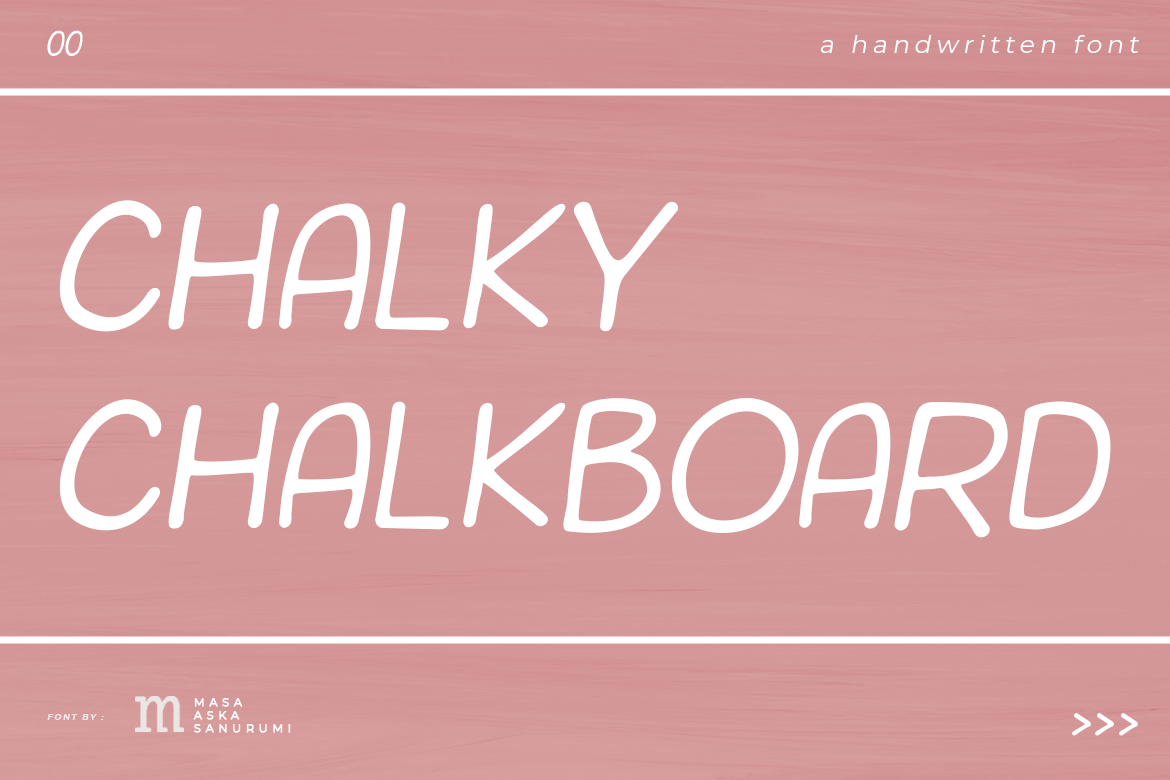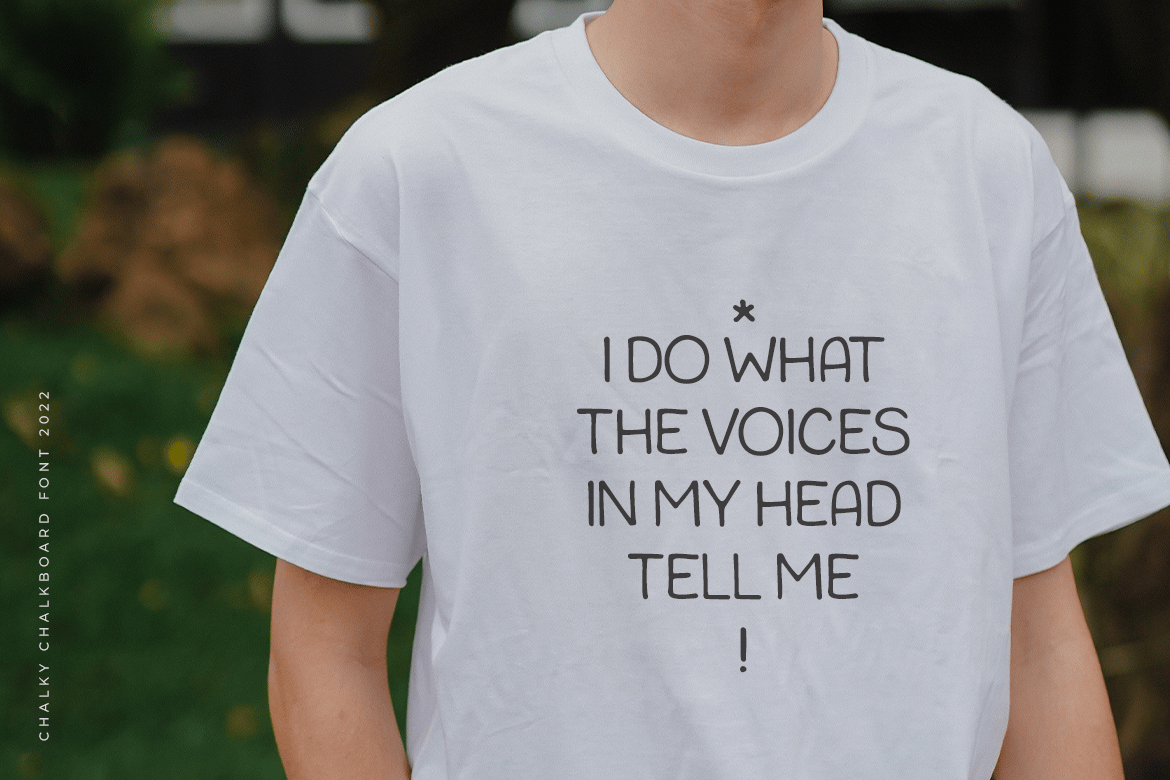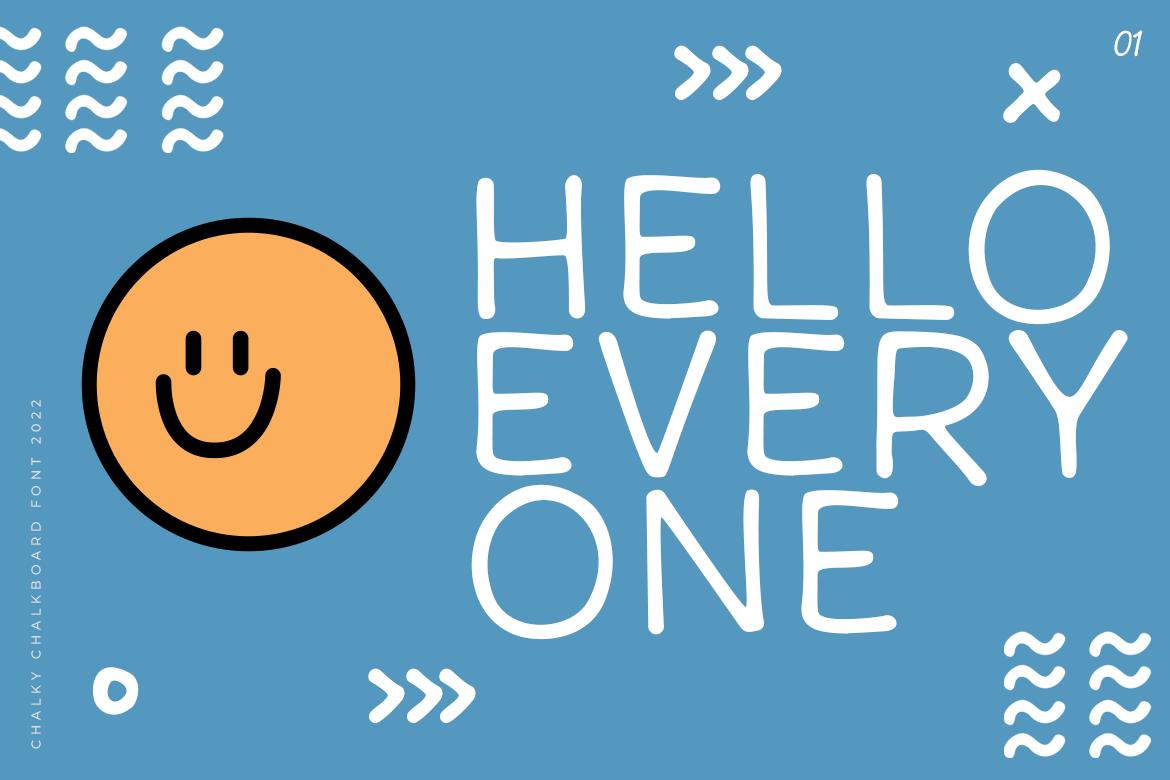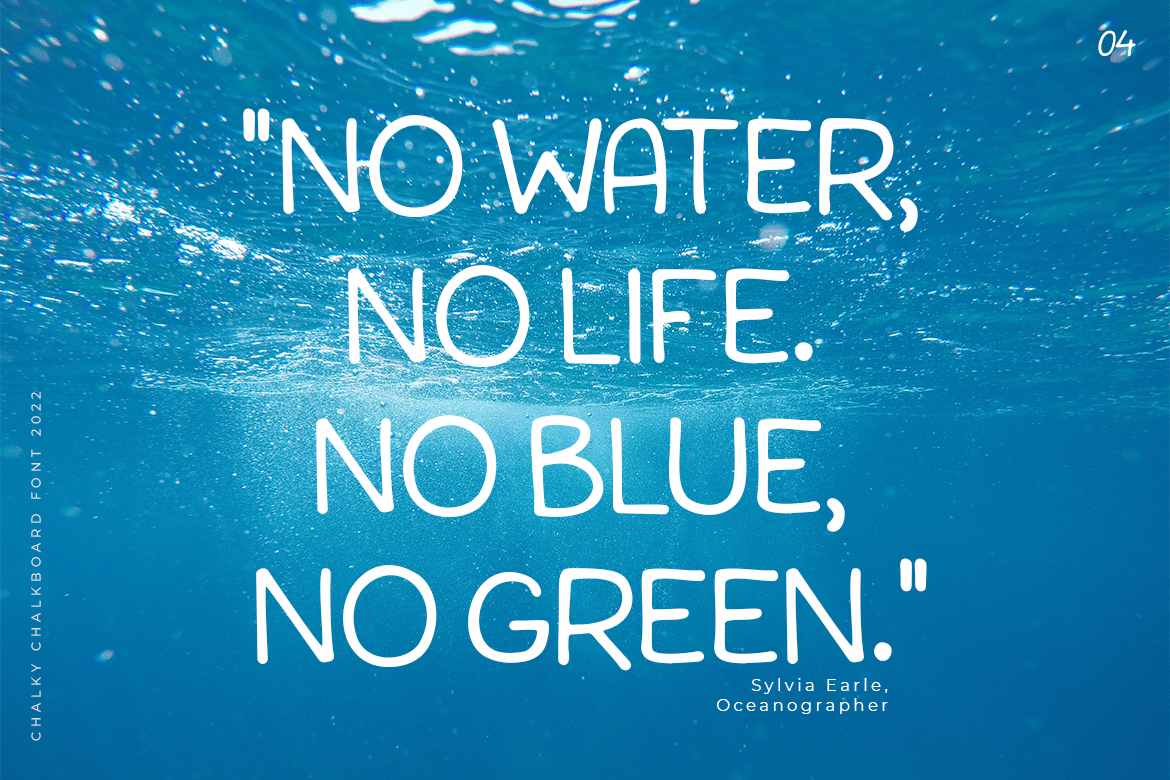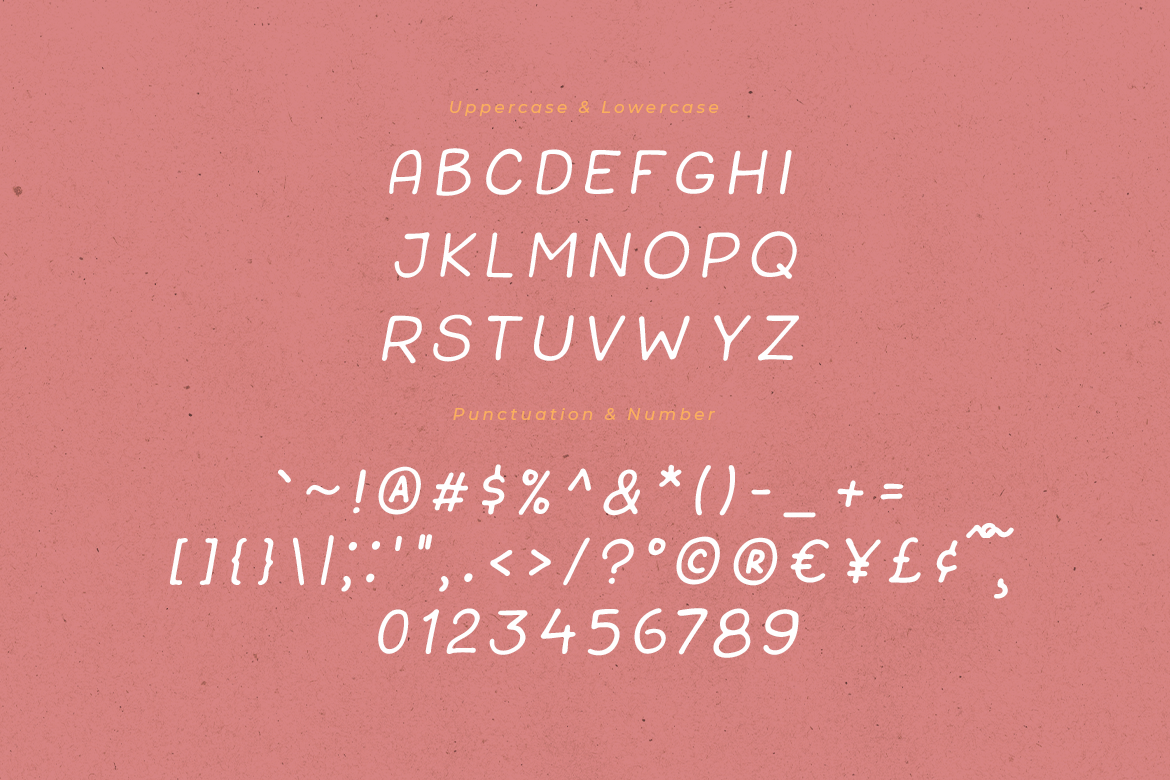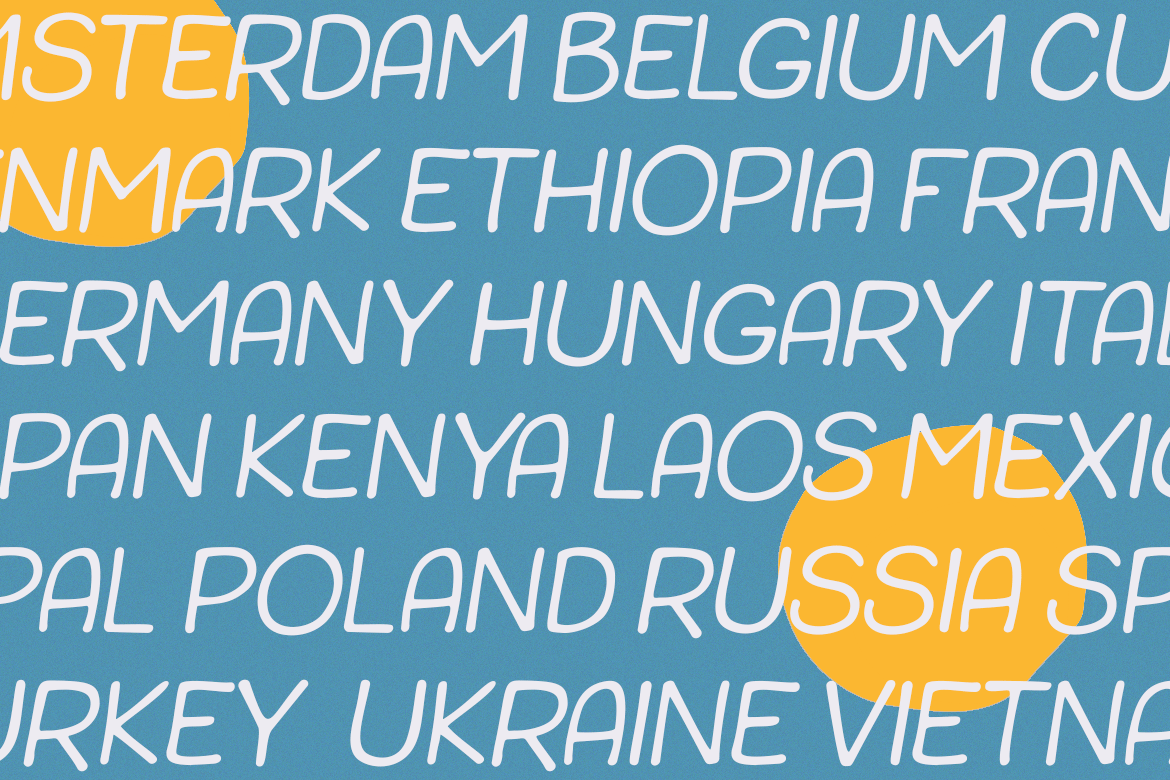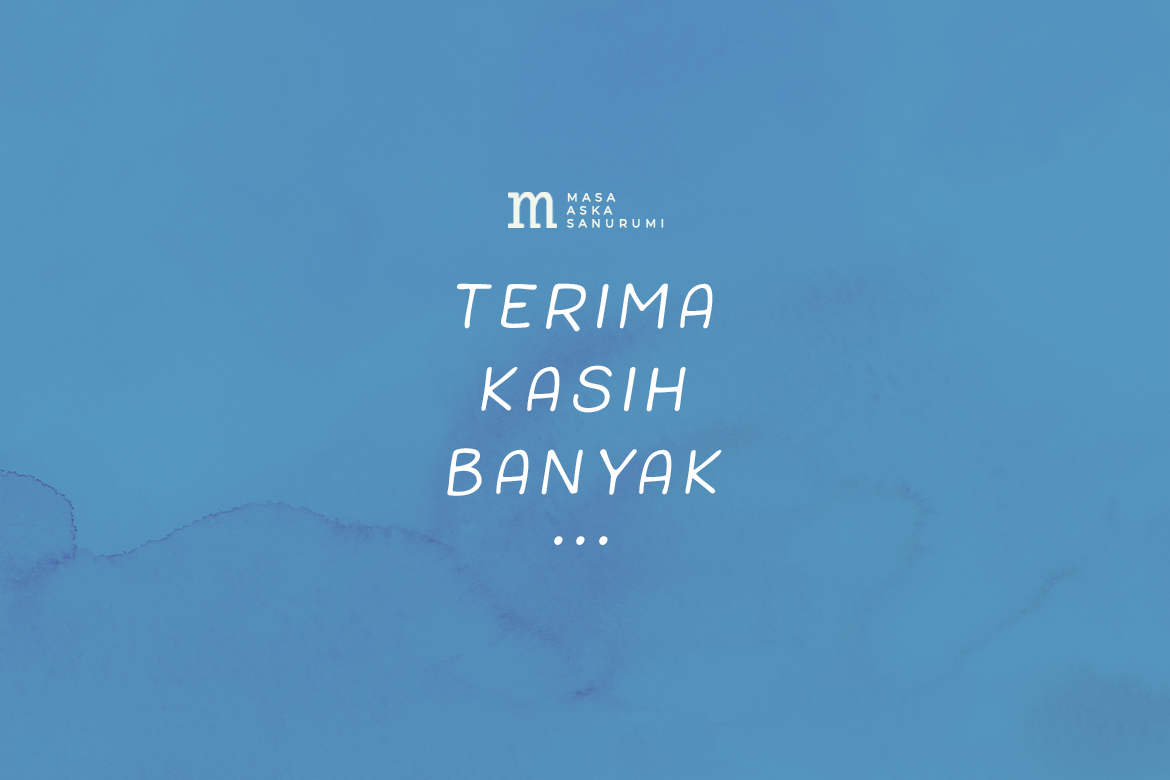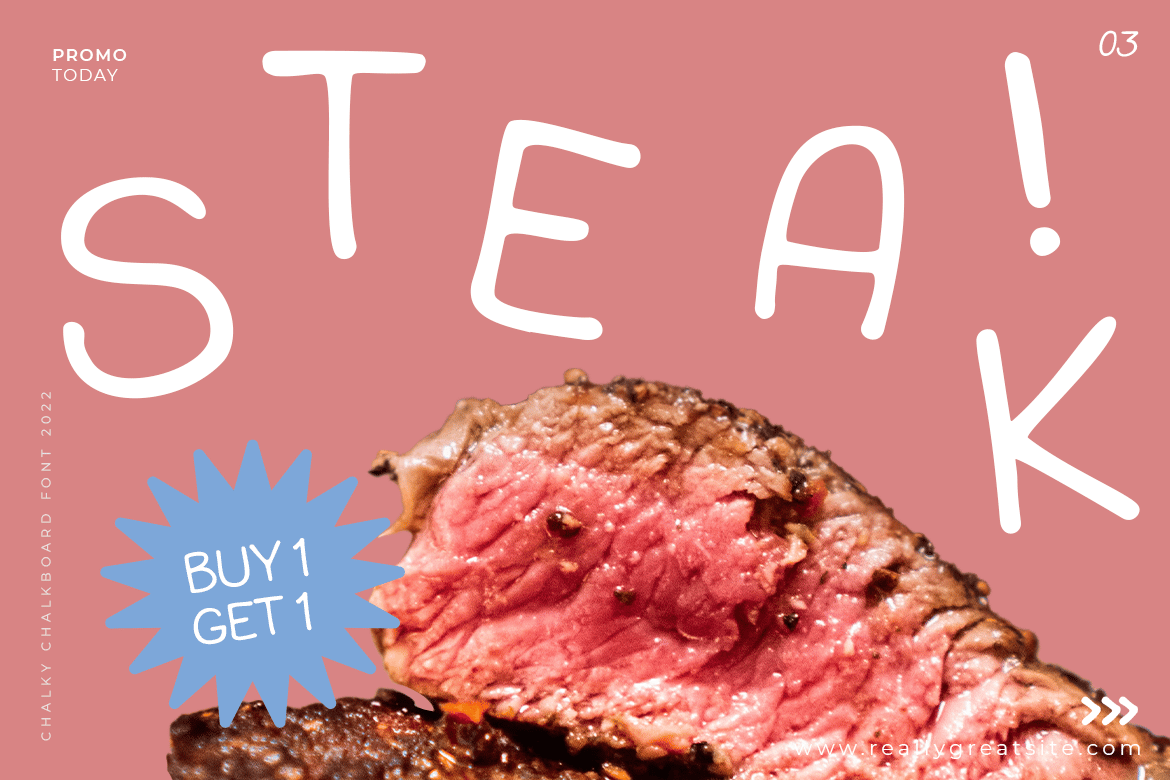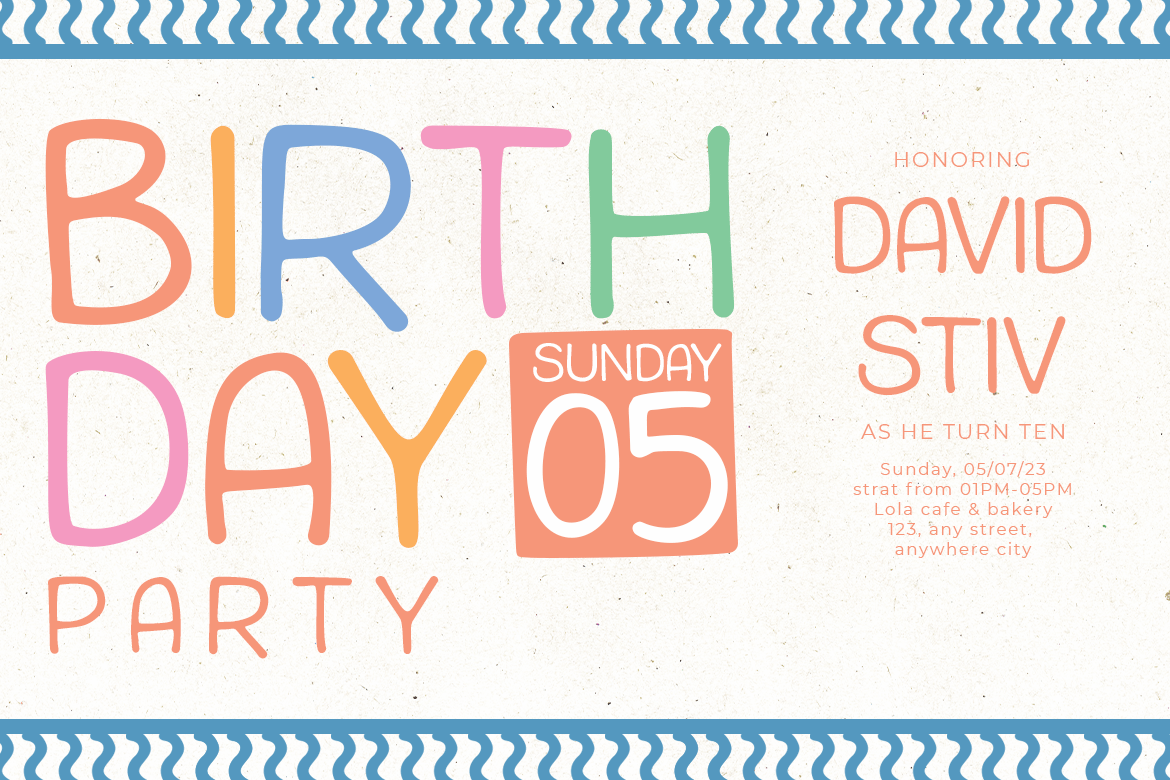
Chalky Chalkboard | A Display Font
Introducing, Chalky Chalkboard is a handwritten display font suitable for your design project needs, such as; social media posts, quotes, overlays on images, posters, print needs, website banners, and more.
- A set of uppercase and lowercase glyphs
- Number, symbol, and punctuation